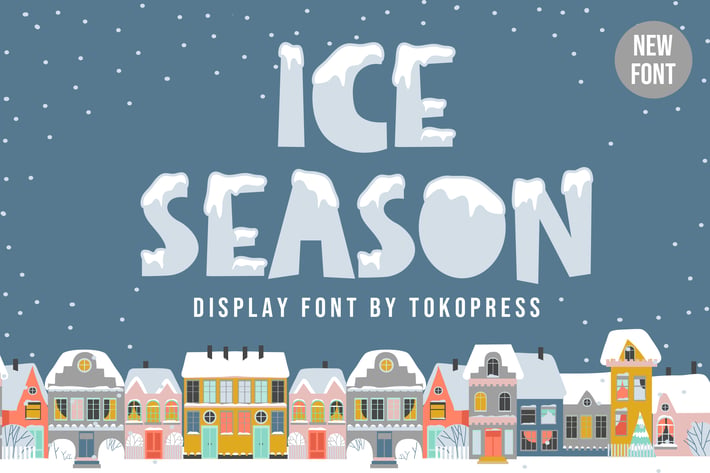
Ice Season - Kids font
Ice Season- Winter Kids Font
“Ice Season” is a joyful winter display type with bold contrast, bouncy alignment, and friendly charm—perfect for holiday branding, kids books, and playful packaging.
Its bubbly uppercase shapes and hand-crafted, rounded structure reflect a soft, welcoming vibe while still remaining highly legible. Designed with expressive snow-themed personality, the font brings warmth to cold-season visuals—ideal for Christmas promos, children's storytelling, and seasonal campaigns.
Designed to evoke frosty fun and storybook whimsy, Ice Season thrives in branding projects that call for emotional resonance. Whether you're designing winter festival posters, warm café menus, kidswear labels, or snow-themed app interfaces, this typeface infuses your project with a cozy, kid-friendly energy. Its distinct character makes every letter a visual element—drawing in viewers with its charm and snowy touch.
Key Features
Playful and Friendly:
Rounded forms and energetic structure deliver a sense of approachability for young and general audiences.
Designed for Visual Impact:
Perfect for large-size use—headers, product tags, or thumbnails where attention is key.
Versatile Applications:
Whether you're creating packaging for cocoa or a children's snow story, Ice Season brings the right tone.
Full Display Set:
Includes uppercase, lowercase, numbers, and key punctuation to support expressive layouts.